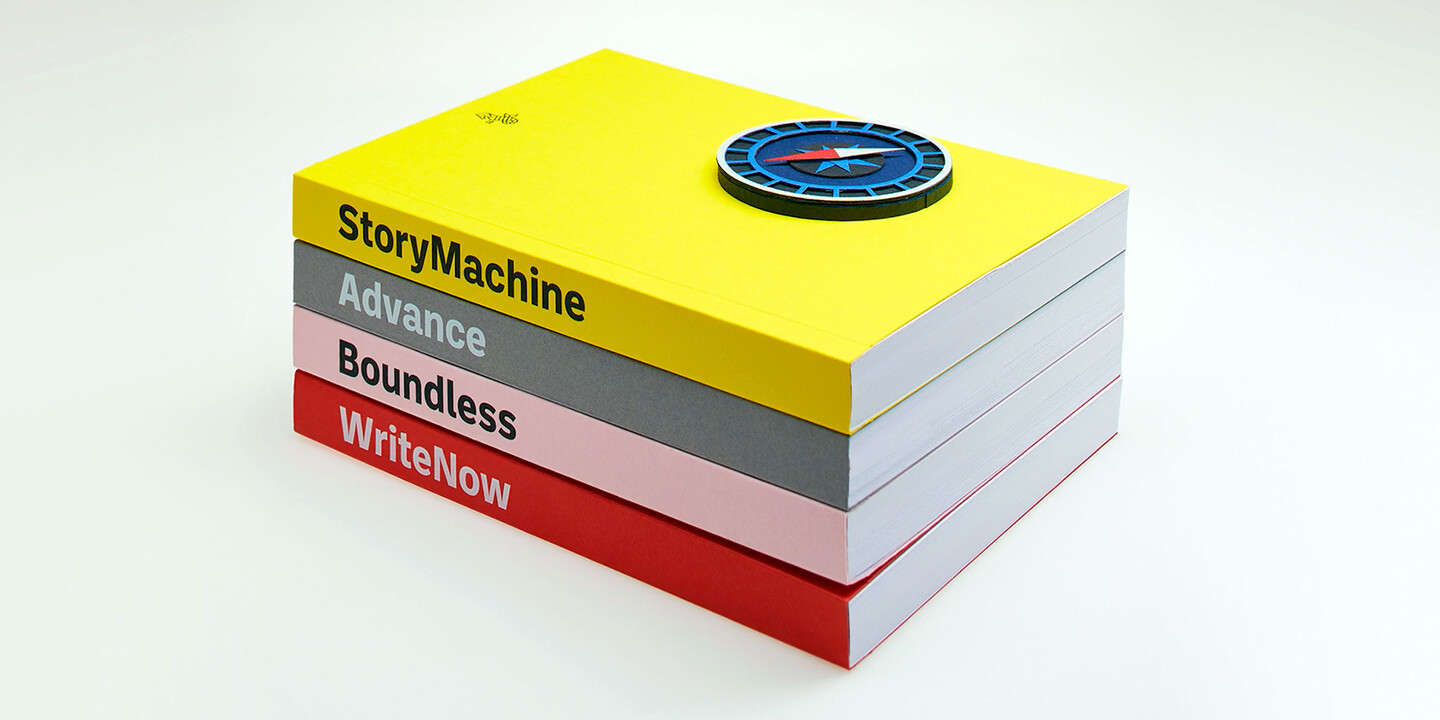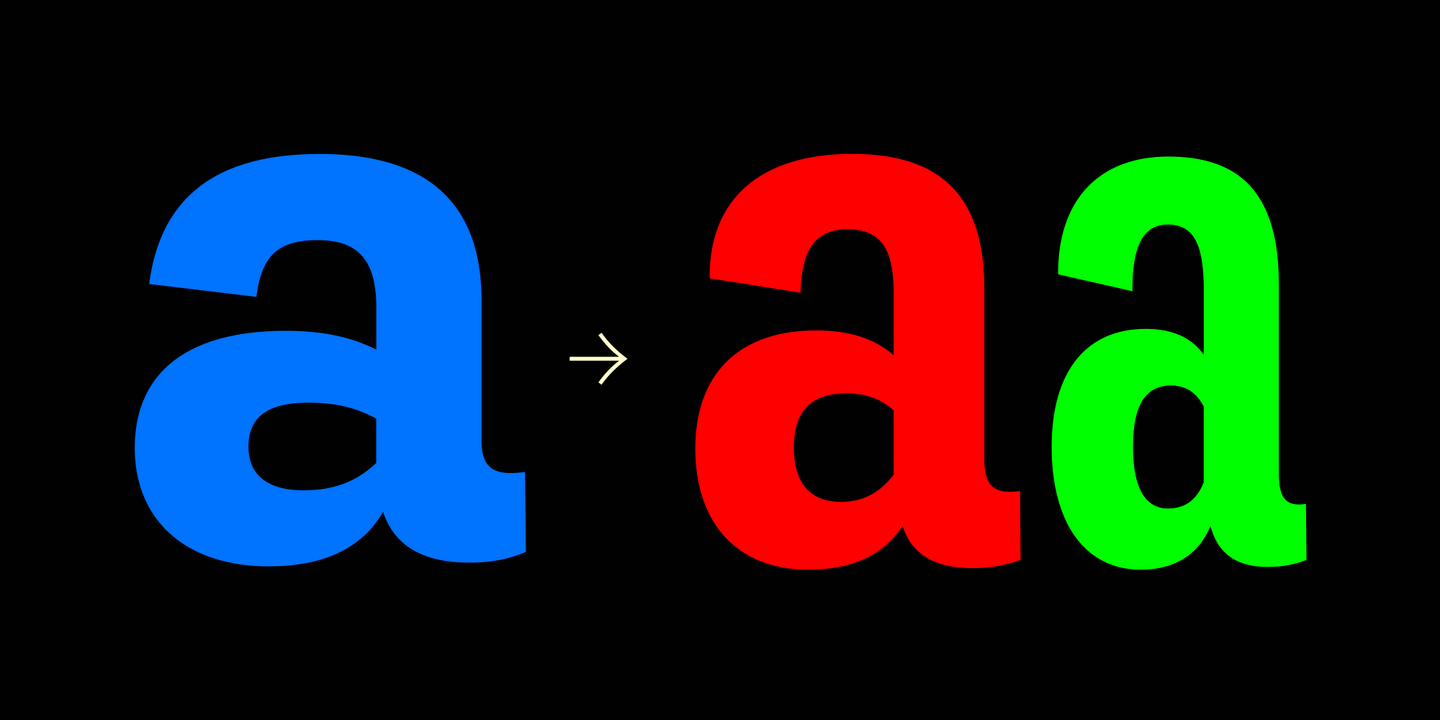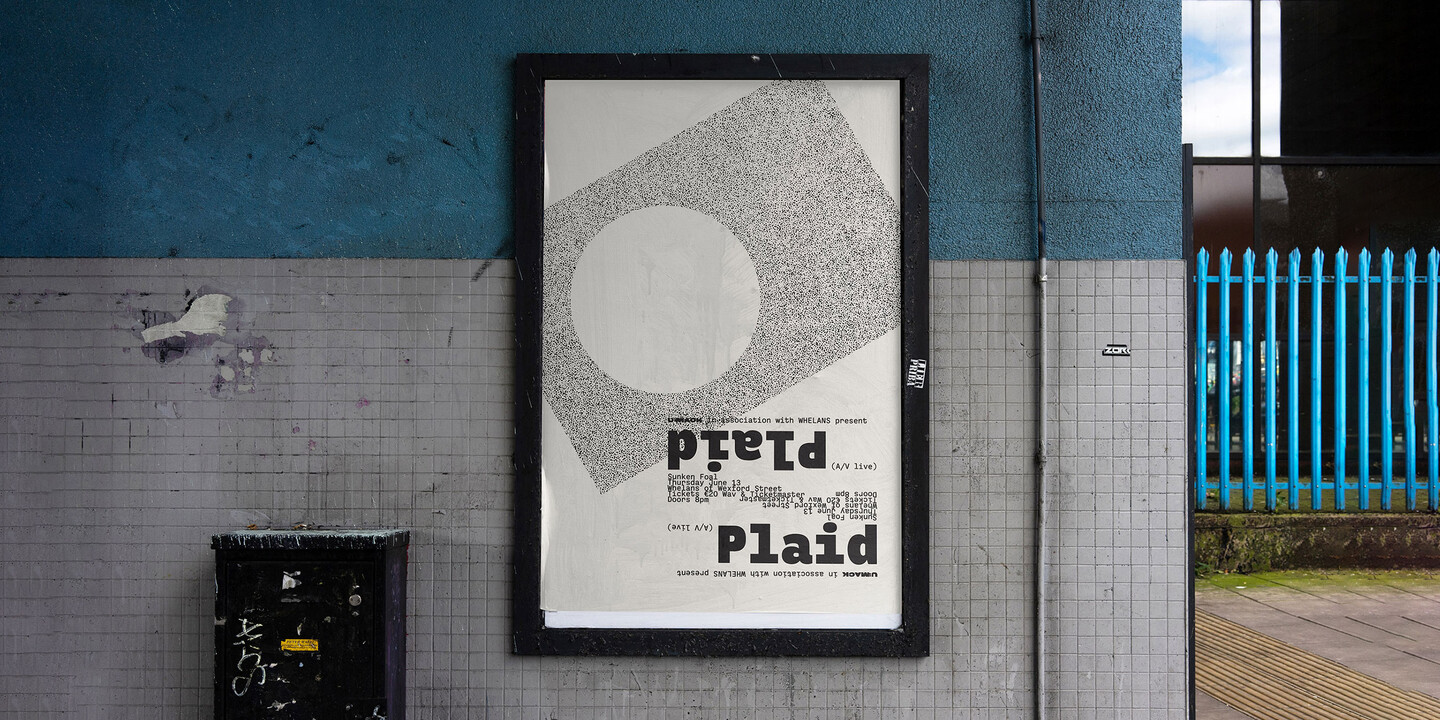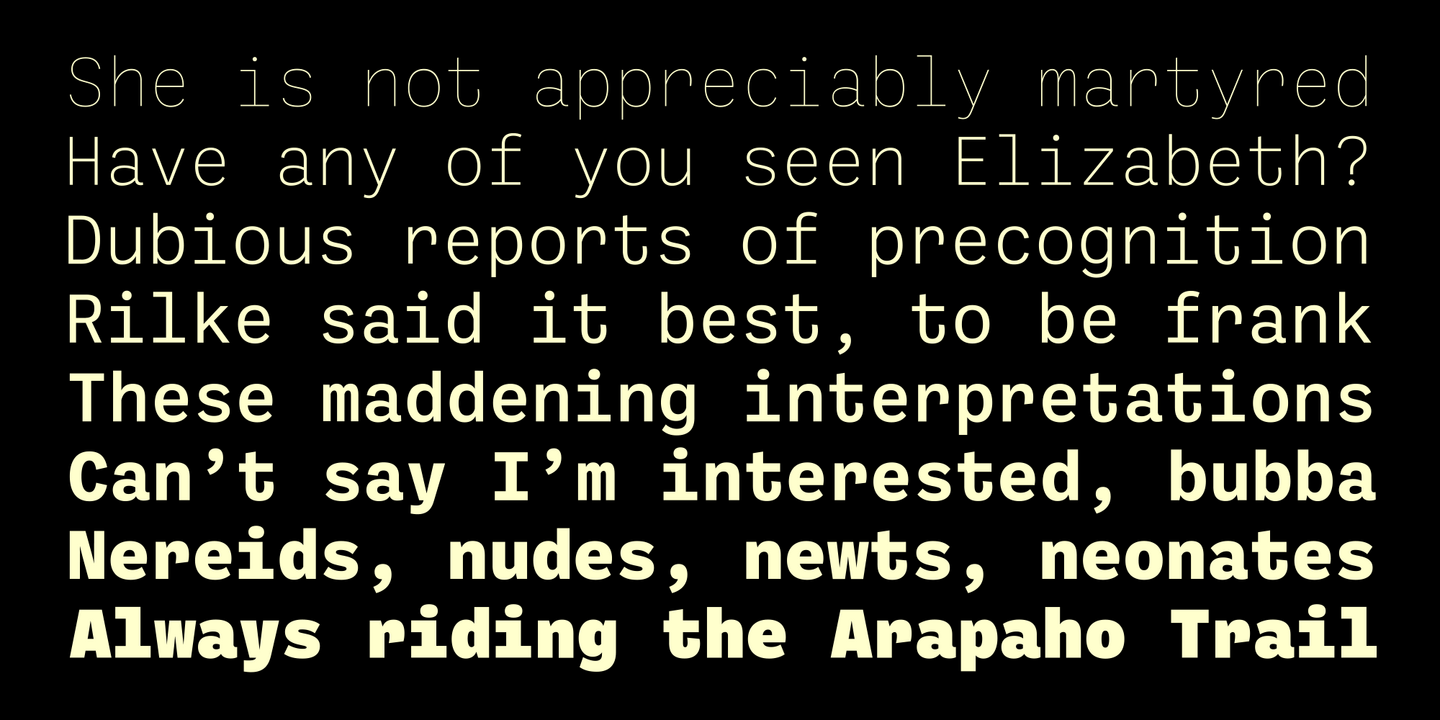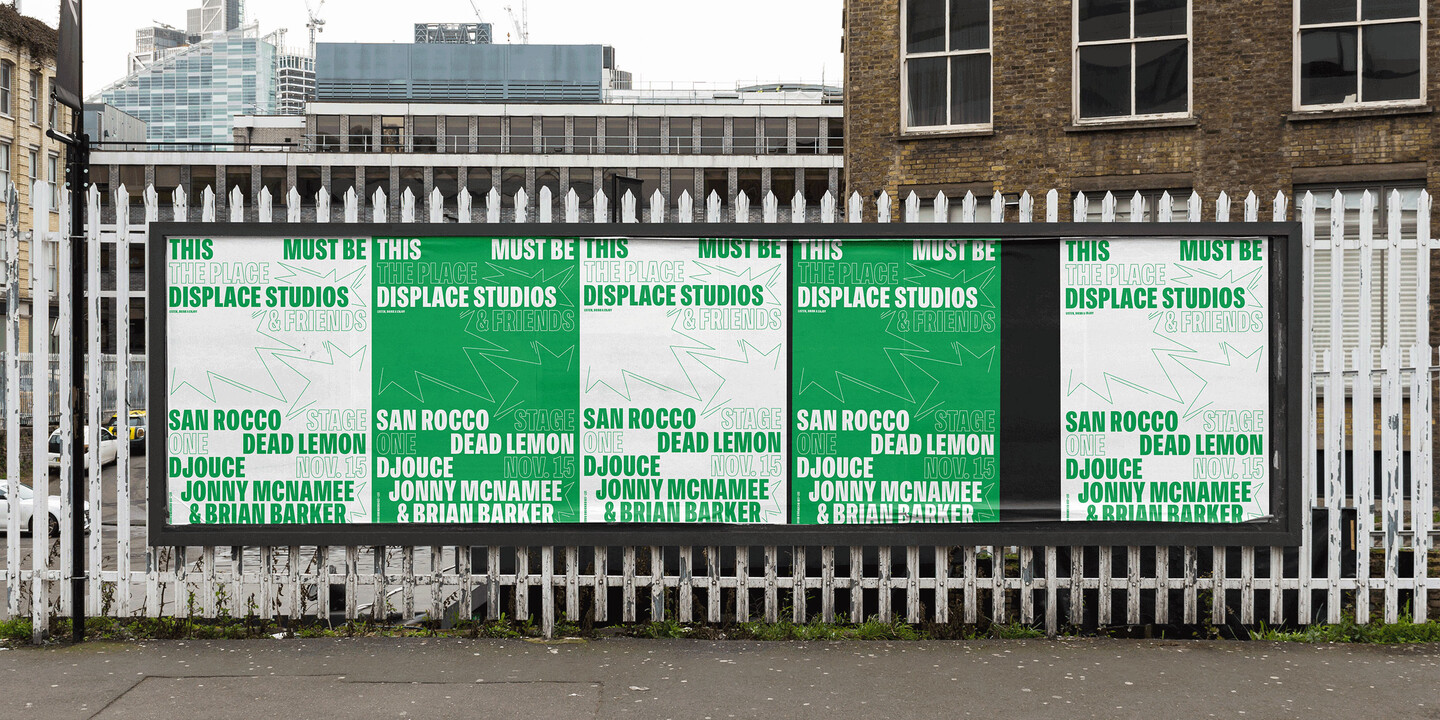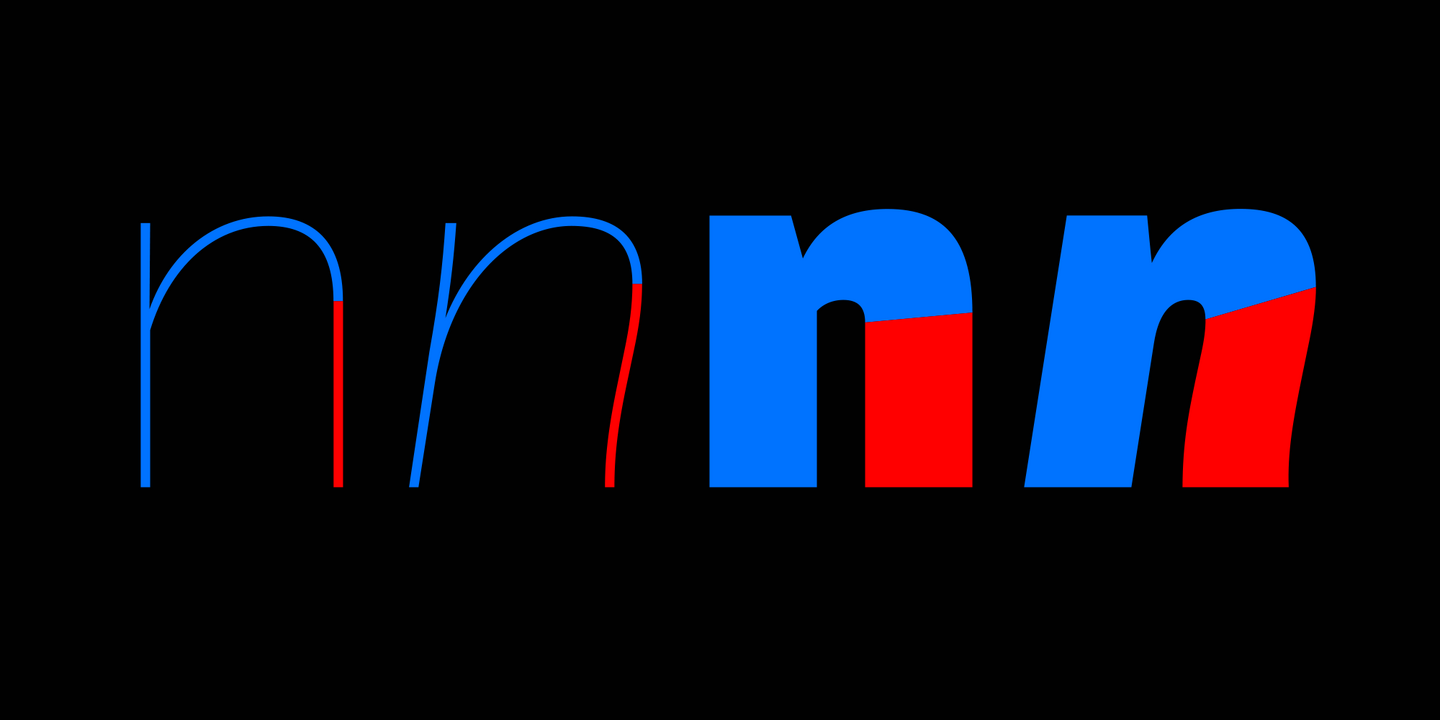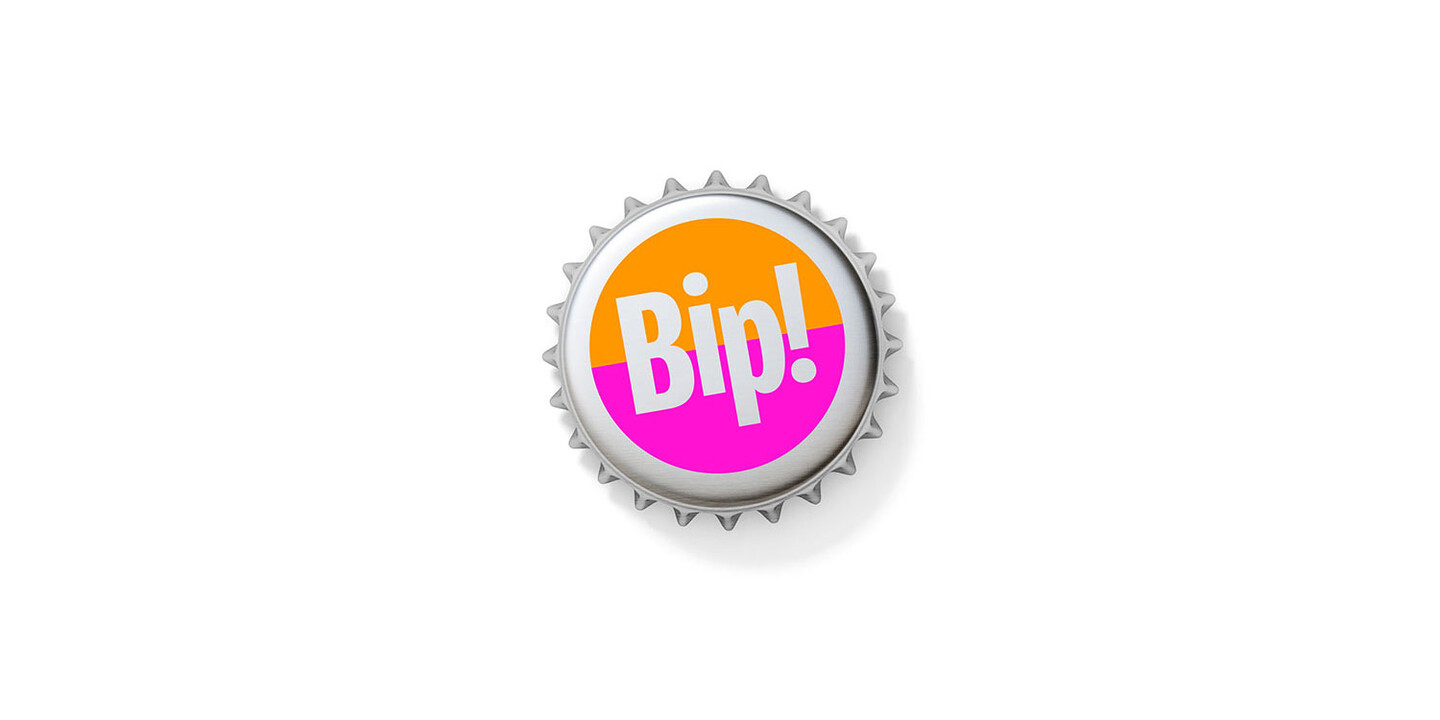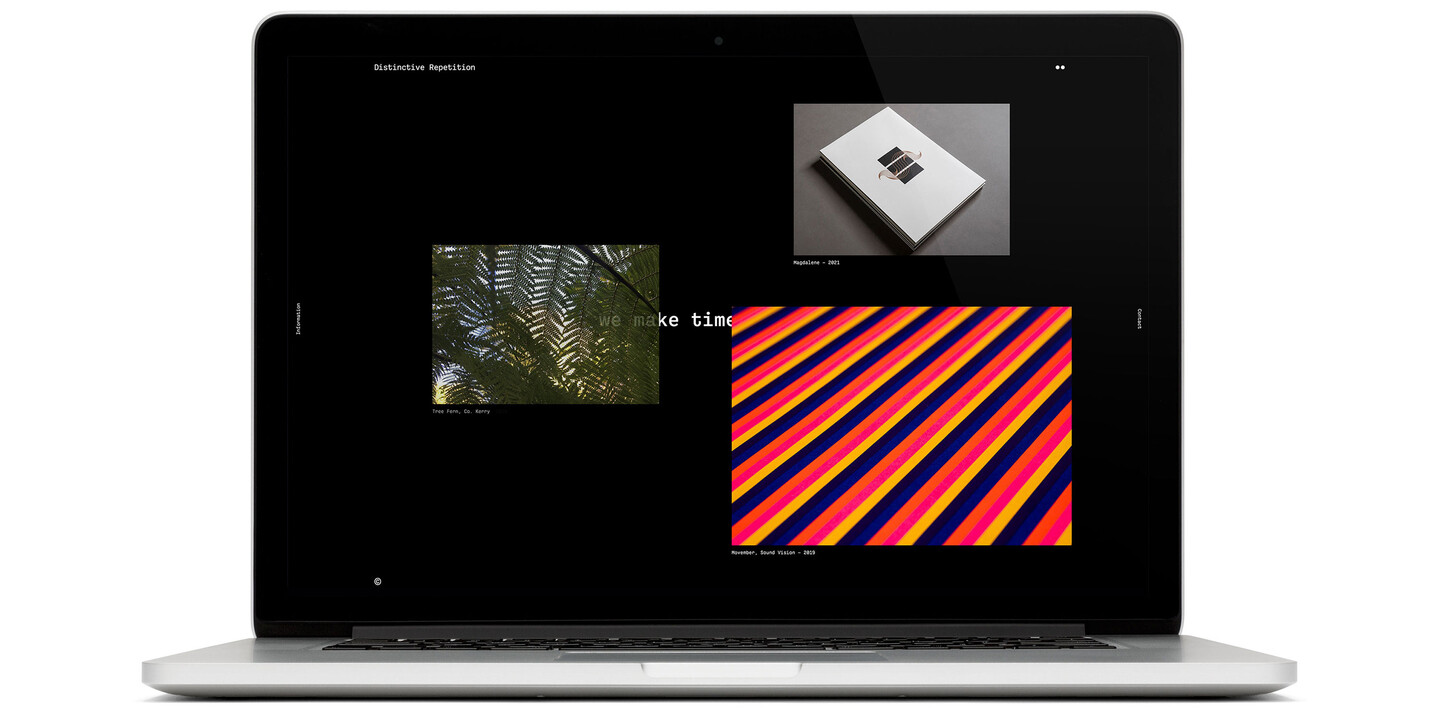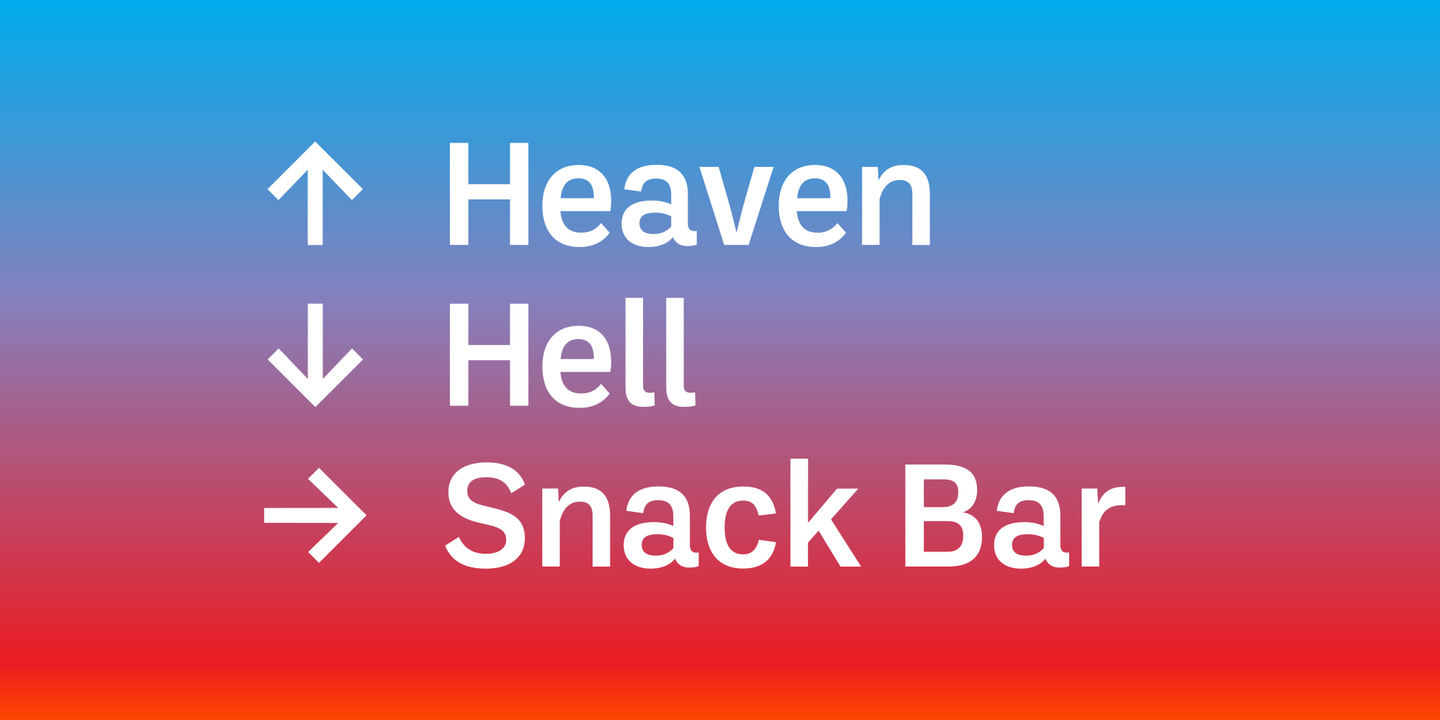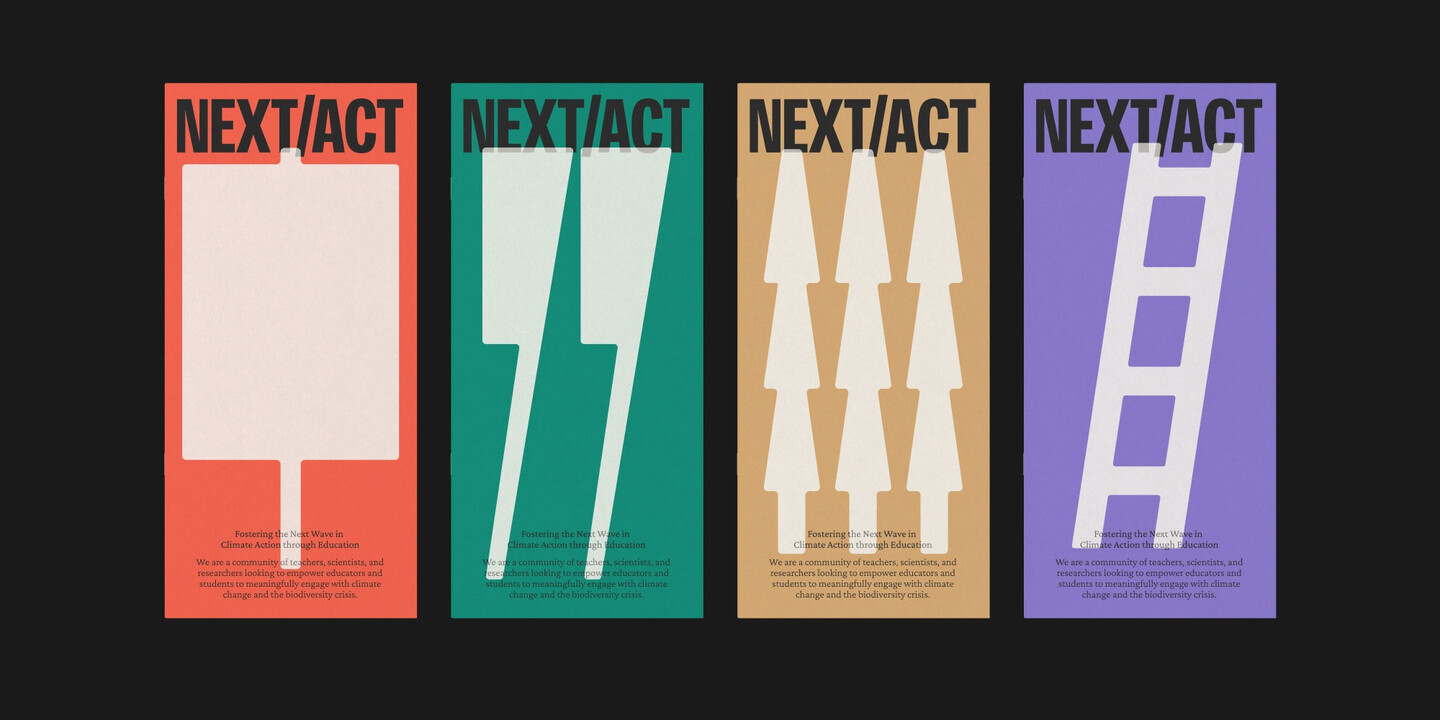
Reckham is a mutant Scotch Roman. We wanted to draw a Century Expanded that turned Clarendon when it got bolder, but somewhere along the way the serifs came unbracketed and our ideals of clarity and rigor had to make room for a few eccentric details. Six weights, four degrees of contrast, and matching italics add up to 48 styles. The full Reckham family includes variable roman and italic fonts, so users can fine-tune weight and contrast to suit themselves.
Field Gothic is an eight-weight, eight-width, possibly-too-personal journey through the history of American and European sanses that may or may not parallel our own journey from New York City to Dublin. Overall, the look is crisp and on the cool side, with slightly superelliptical curves. The lightest weights are almost monoline. Above that, arches and bowls have sharply contrasting junctures and a notably snug fit.
Dashiell was made to be read. Designed by a devoted reader with lousy eyesight, it’s an attempt to combine the warmth and frankness of Caslon with the lucid elegance of Garamond. Counters and x-height are ample but not large. Apertures are moderately open, and unbracketed wedge serifs add crispness. The collection includes three families: Dashiell Text, Dashiell Bright, and Dashiell Fine, for a total of 31 styles.
Signal Type Foundry
“I grew up bookish in a house full of books, and it got me interested in those rows of little black marks books are made of. I did my first paid lettering job at fifteen. When I became a graphic designer, I began to study letters seriously and found that the best of them had a particular kind of beauty: the beauty of tools, airplanes, and bridges, of something rigorously shaped for a particular use. I found I wanted to draw more letters like that, so that the things I designed could be made of the very best stuff. And that’s what Signal tries to provide to designers.”
Max Phillips founded Signal in New York City in 2011 after 20-odd years of type-focused branding work and moved it to Dublin when his Irish wife got homesick. We provide custom type design, logo development, typographic consulting, and a retail type library, much of it with a focus on branding, but with occasional longing looks backward at the world of books.
Proprietor
Max Phillips
A former novelist and toy designer, Max now makes useful, attractive things for clients like Christie’s, FAO Schwarz, Pentagram, Virgin Media, and Westingouse, and collaborates with studios and agencies in Ireland and abroad.